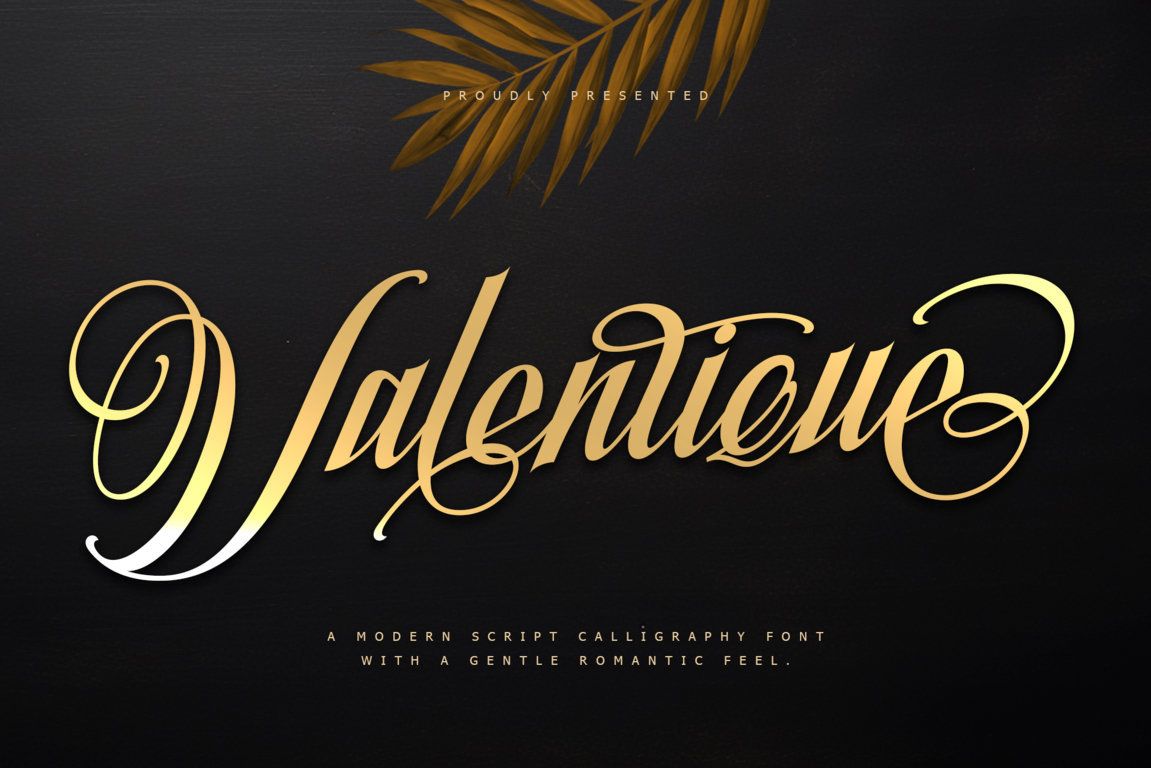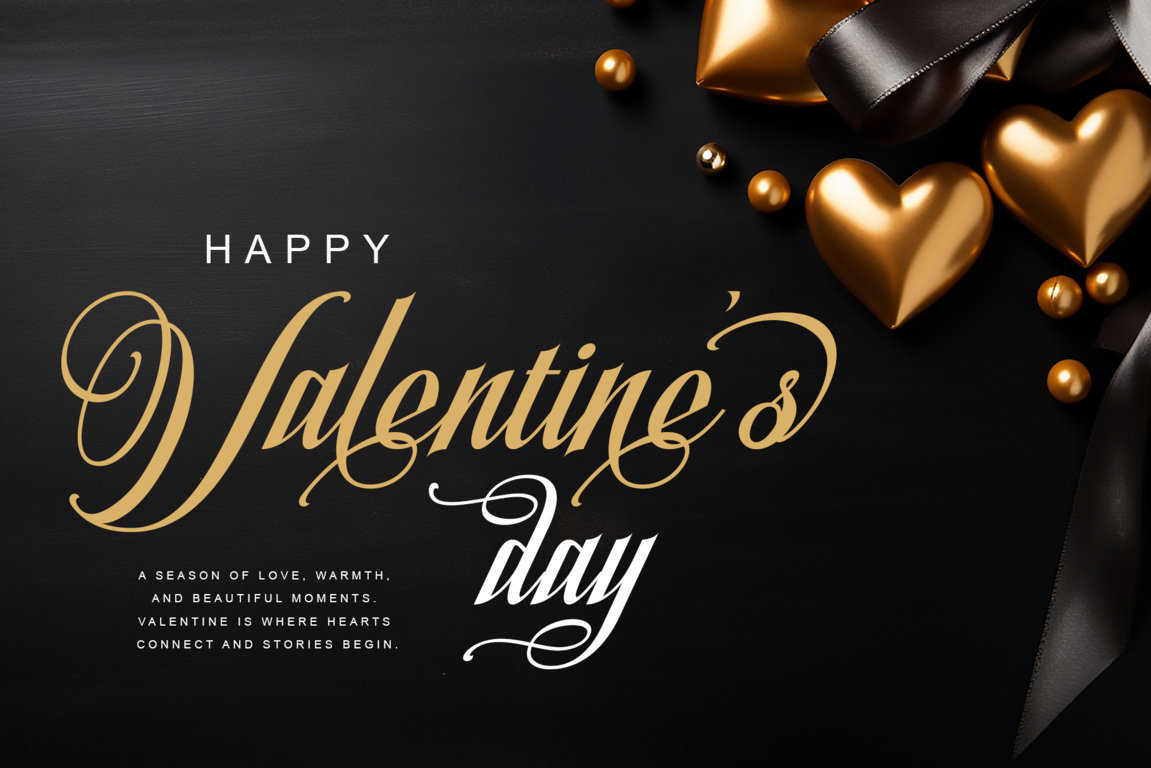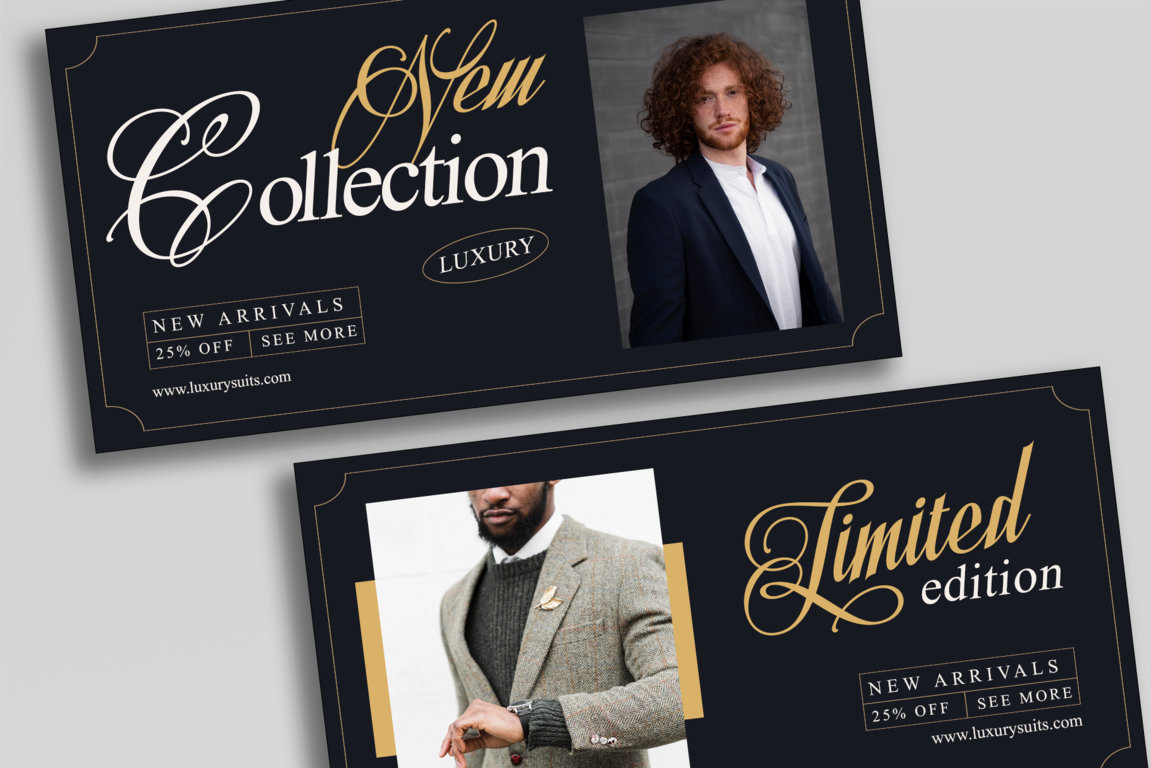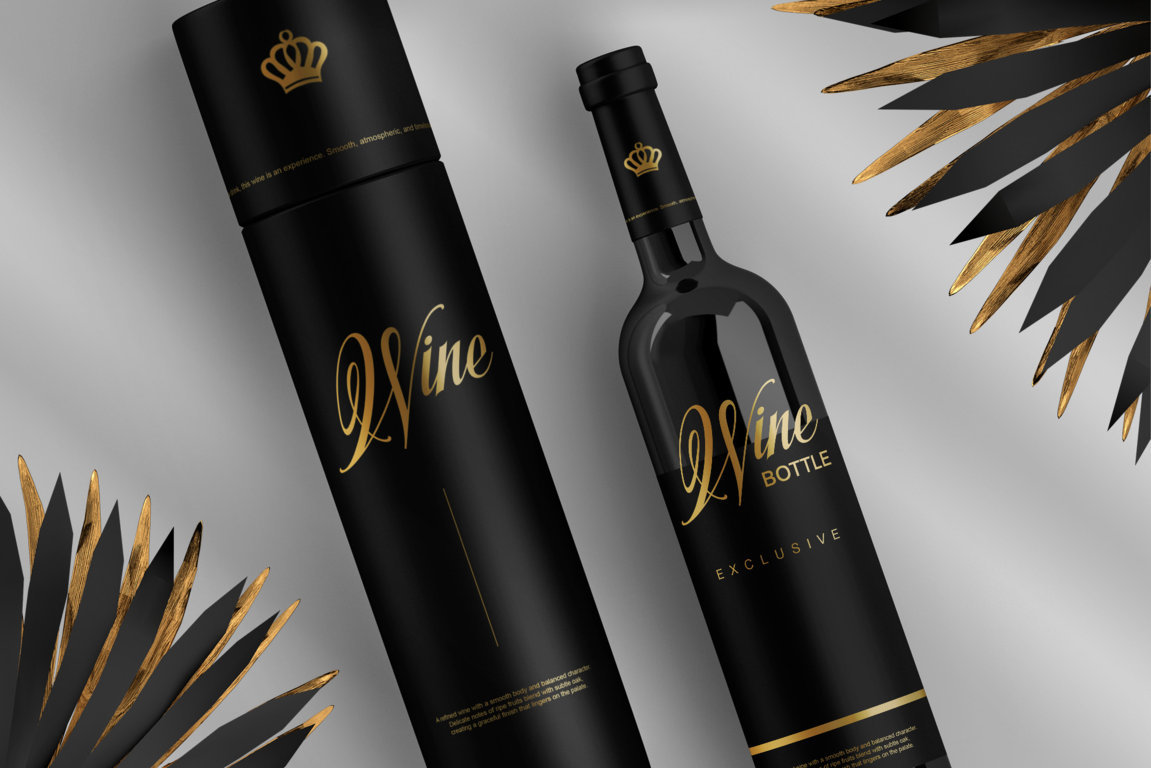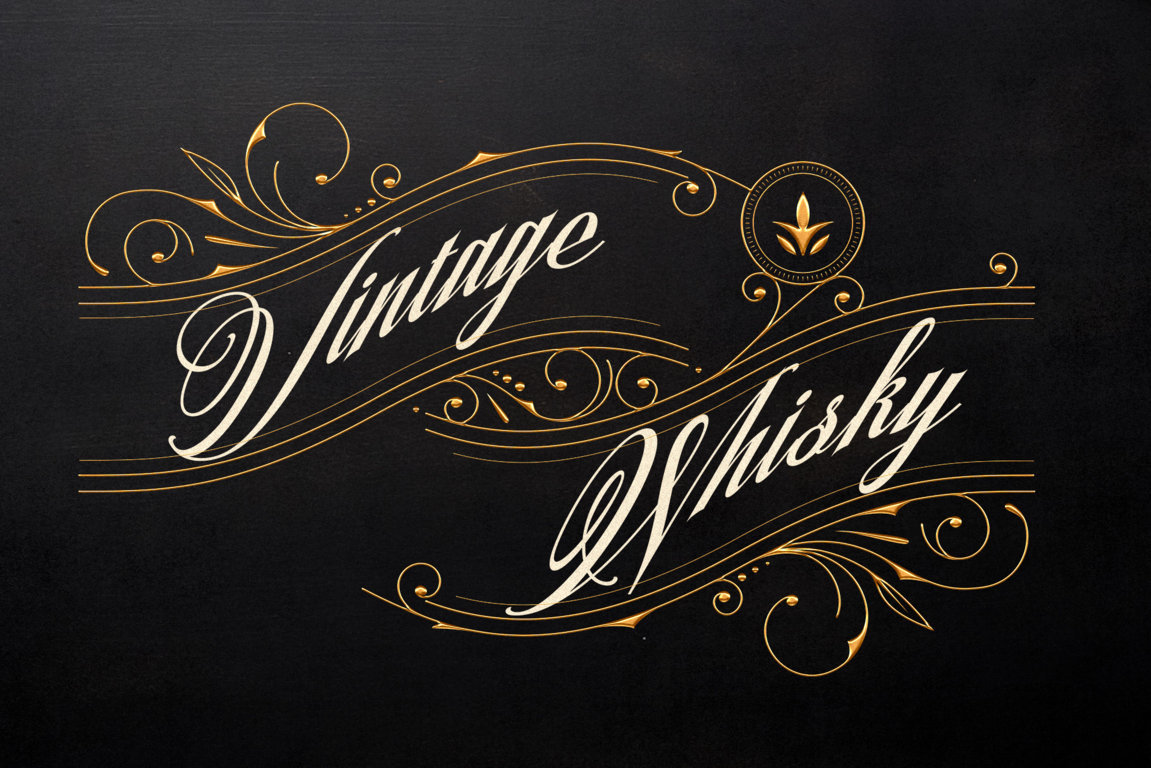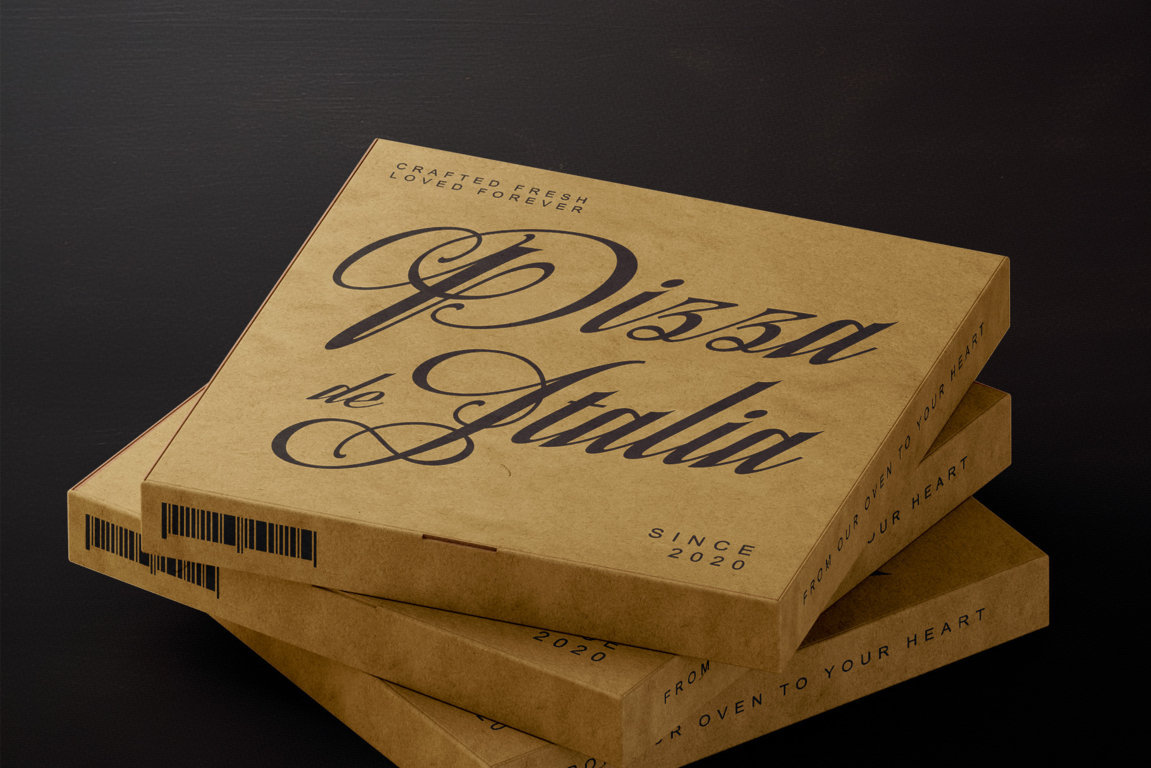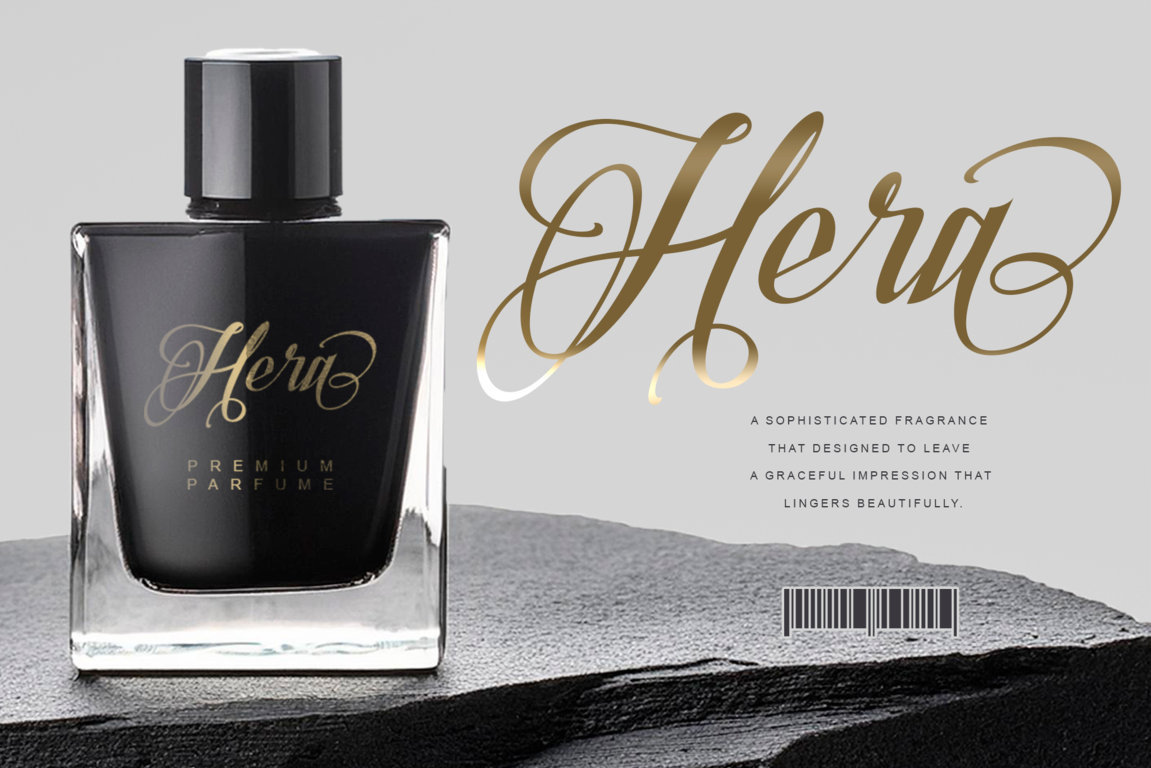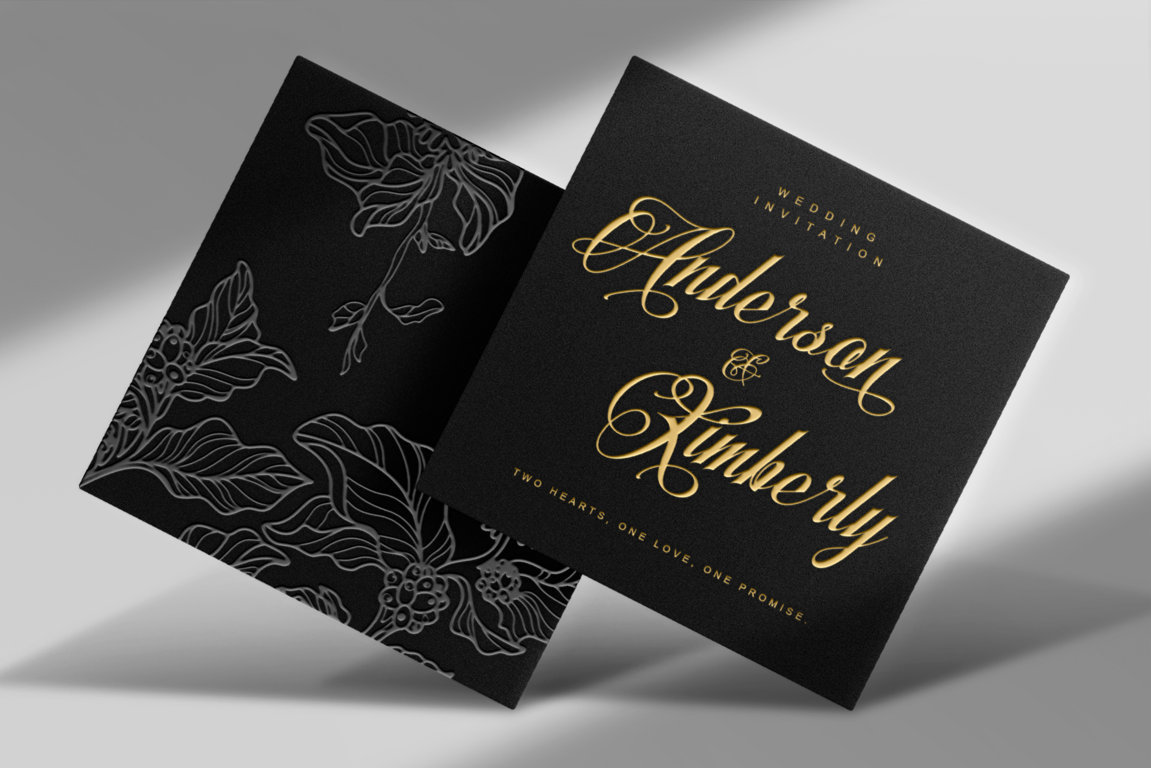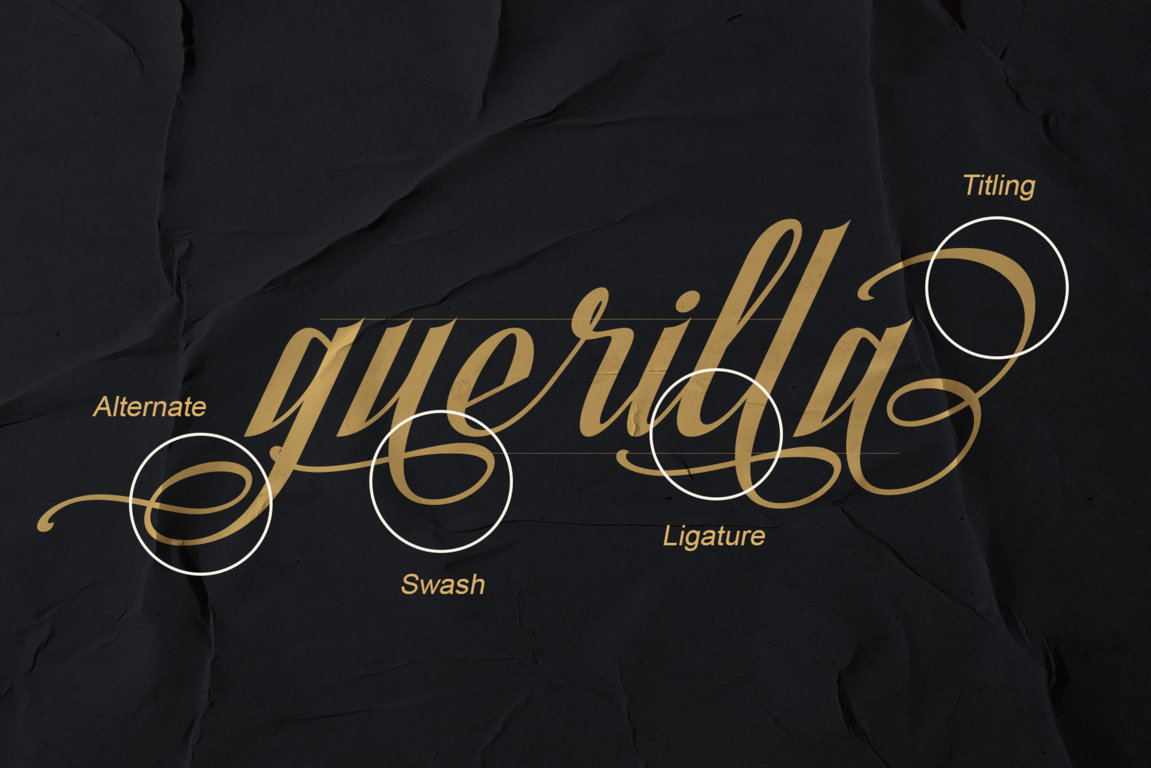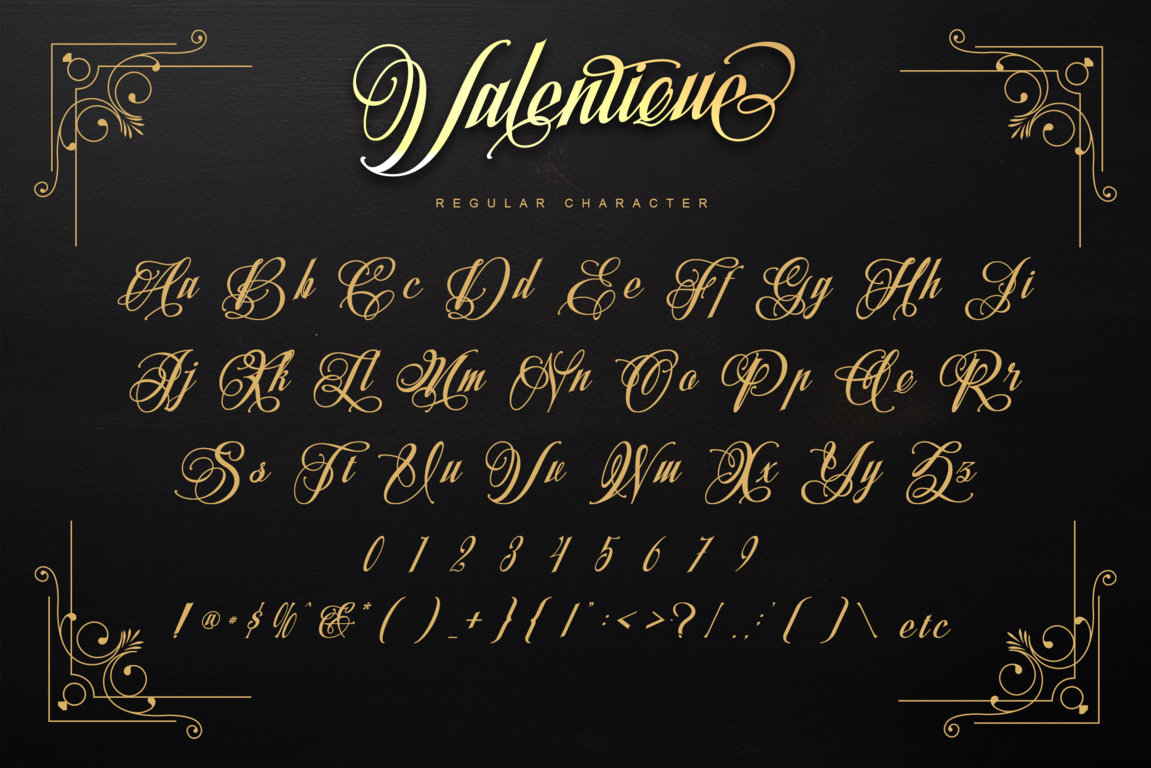
Valentique is a modern script calligraphy font designed to express romance, elegance, and refined artistic beauty. Featuring smooth flowing curves, balanced strokes, and graceful letterforms, Valentique delivers a warm and emotional typographic style that feels timeless yet contemporary. Each character is crafted to create a natural calligraphic rhythm, transforming words into visually poetic expressions.
Perfect for romantic branding, luxury logos, wedding invitations, love quotes, editorial headlines, premium packaging, and creative design projects, Valentique adds a soft yet confident personality to any layout. Its elegant script style offers a personal and expressive touch while remaining clean, readable, and professional.
Valentique is fully PUA encoded, allowing easy access to decorative alternates, swashes, ligatures, and stylistic sets without additional software. Whether you’re designing for print or digital use, Valentique gives you complete creative freedom to build unique, expressive, and memorable typography.
Let Valentique elevate your designs with romantic charm, modern sophistication, and artistic soul—where every letter speaks with feeling and beauty.
Multilingual support (ä ö ü Ä Ö Ü ß ¿ ¡)
Uppercase & lowercase letters
Numerals & punctuation
Alternates, swashes, titling, ligatures & SS01
Fully PUA encoded